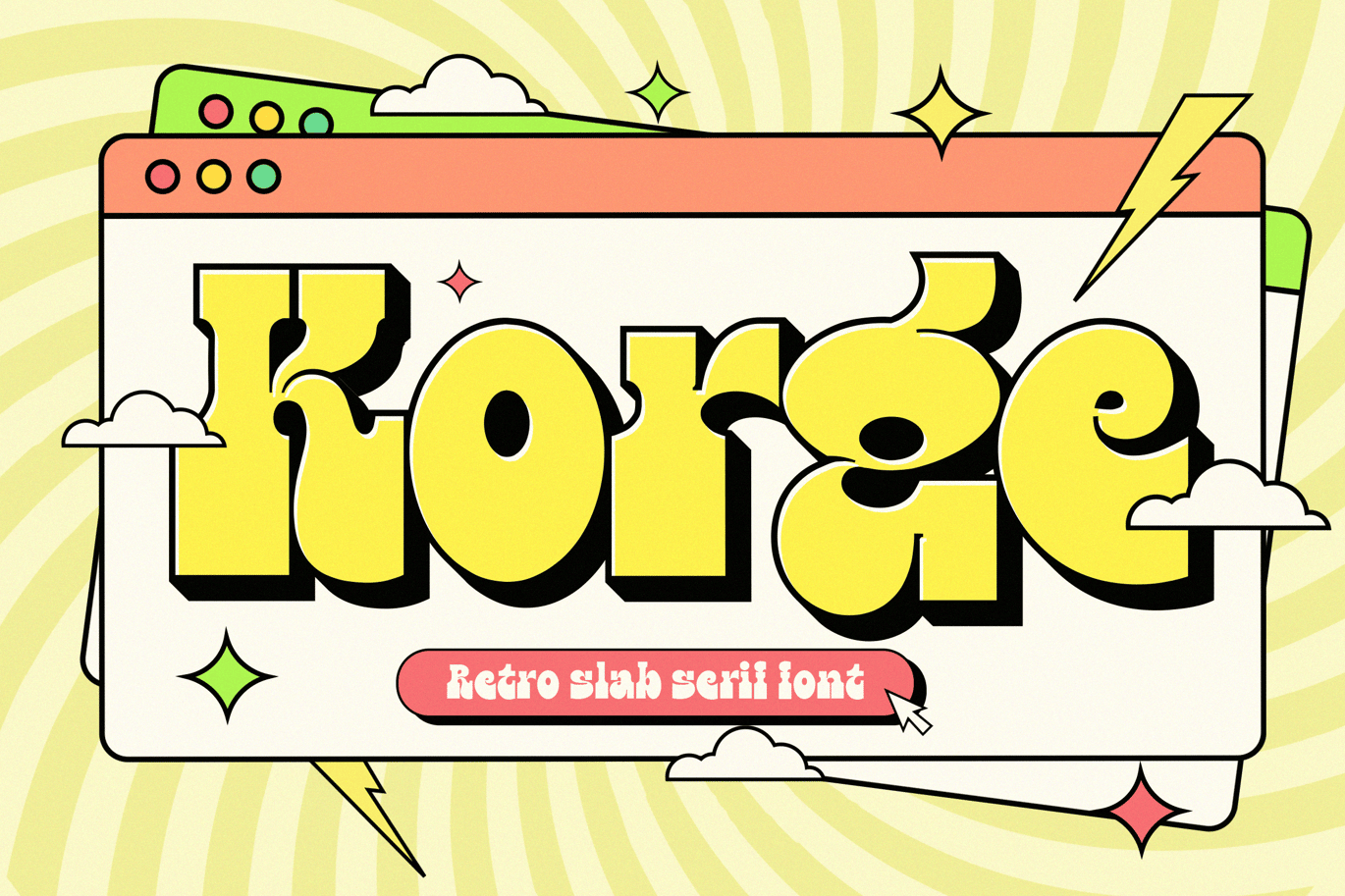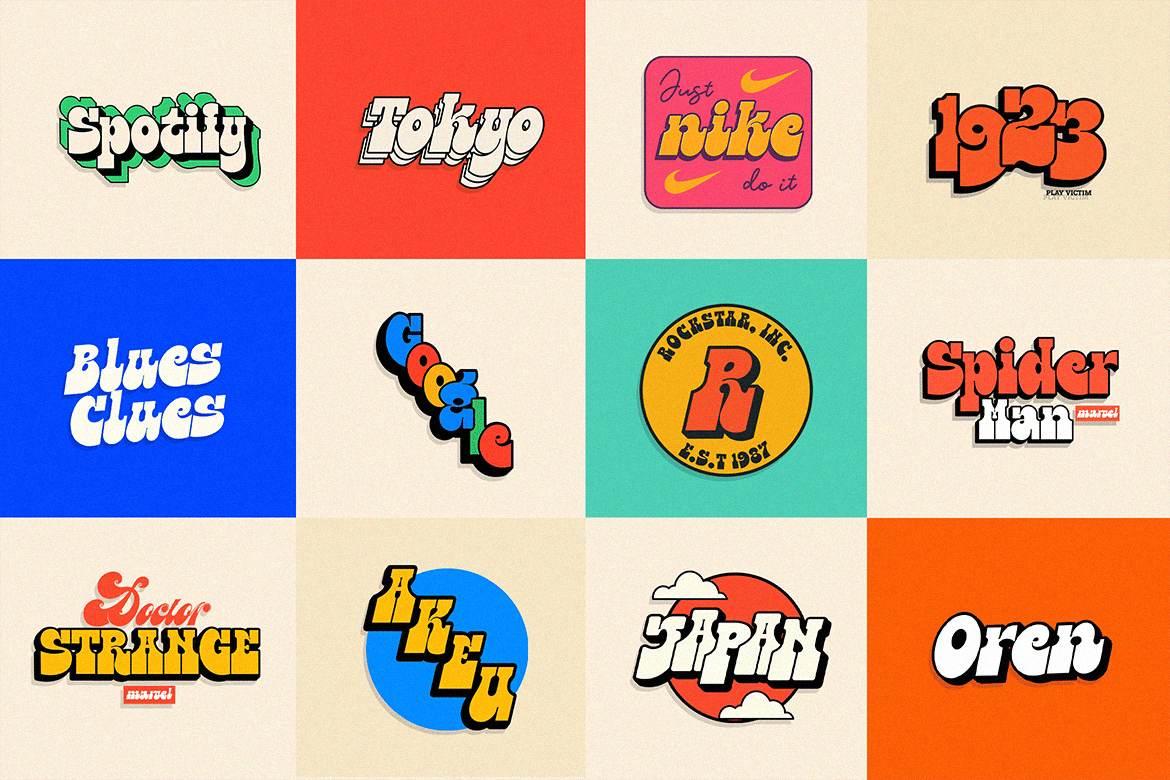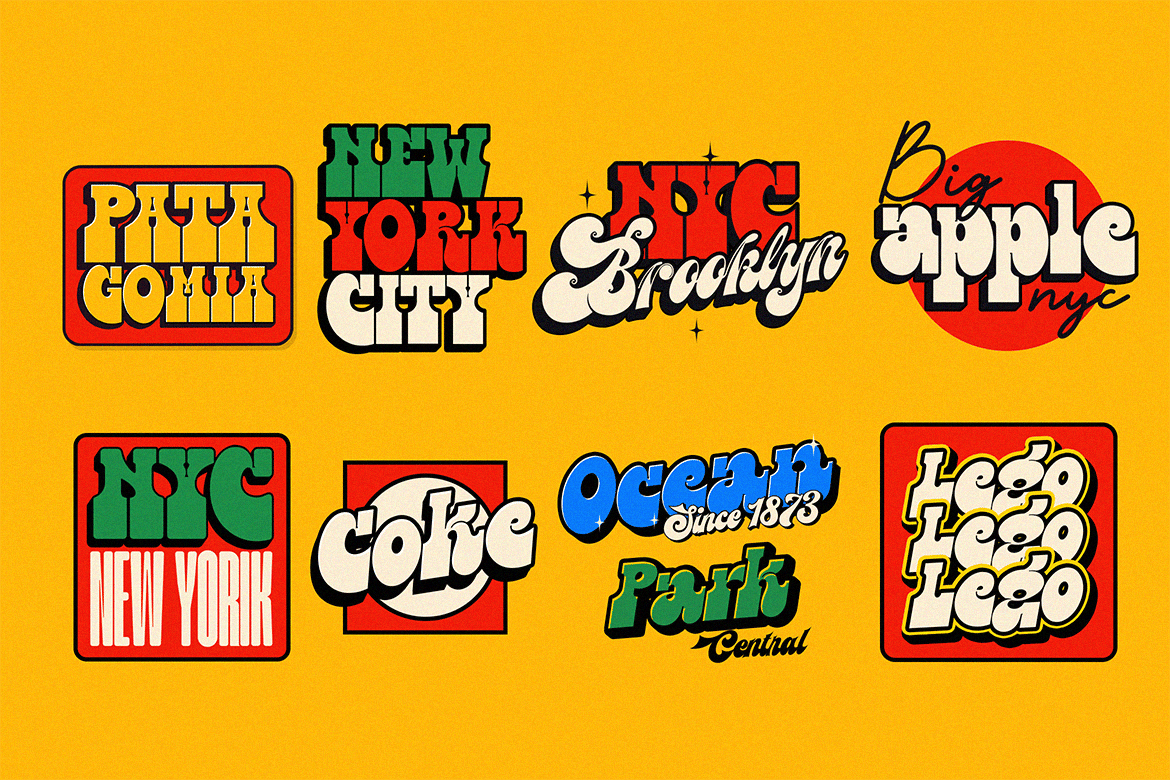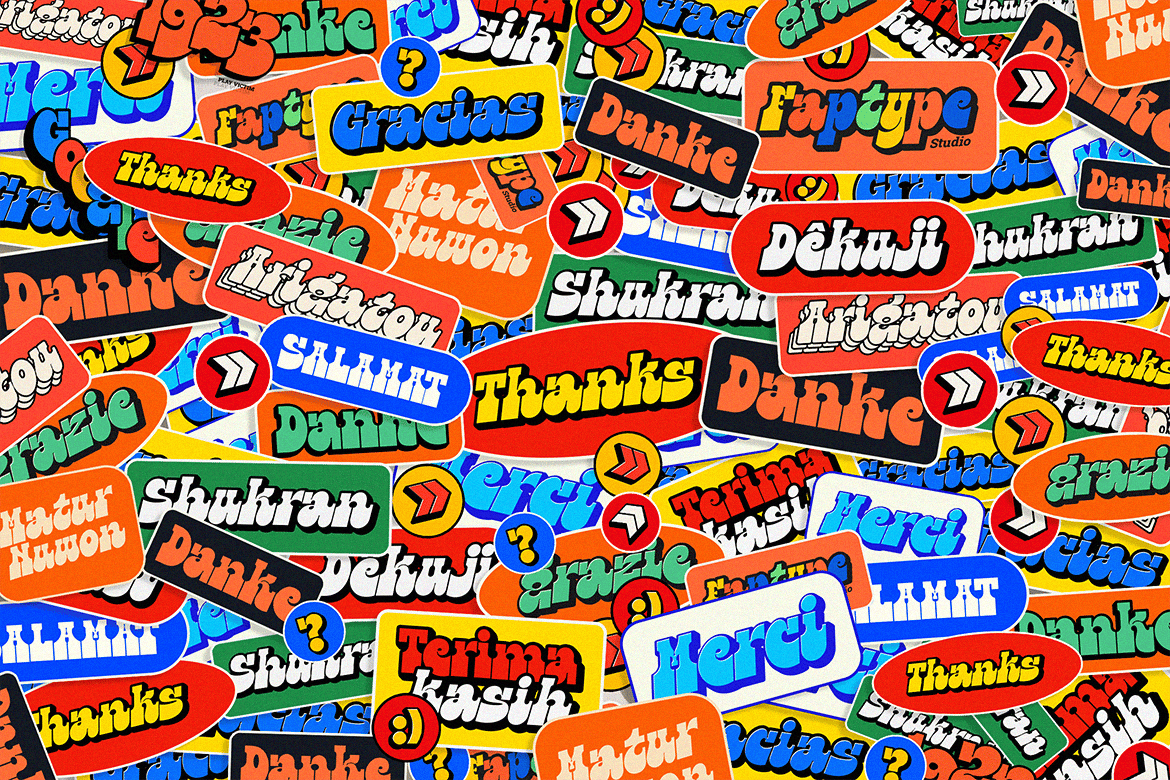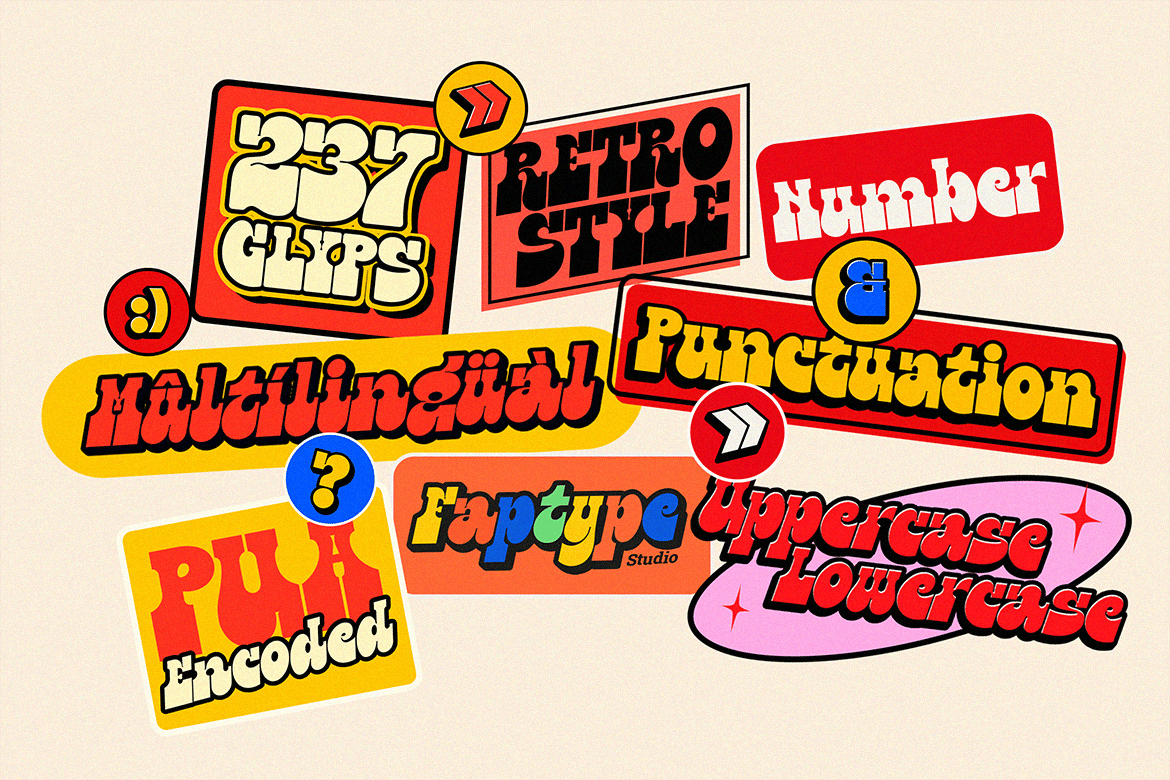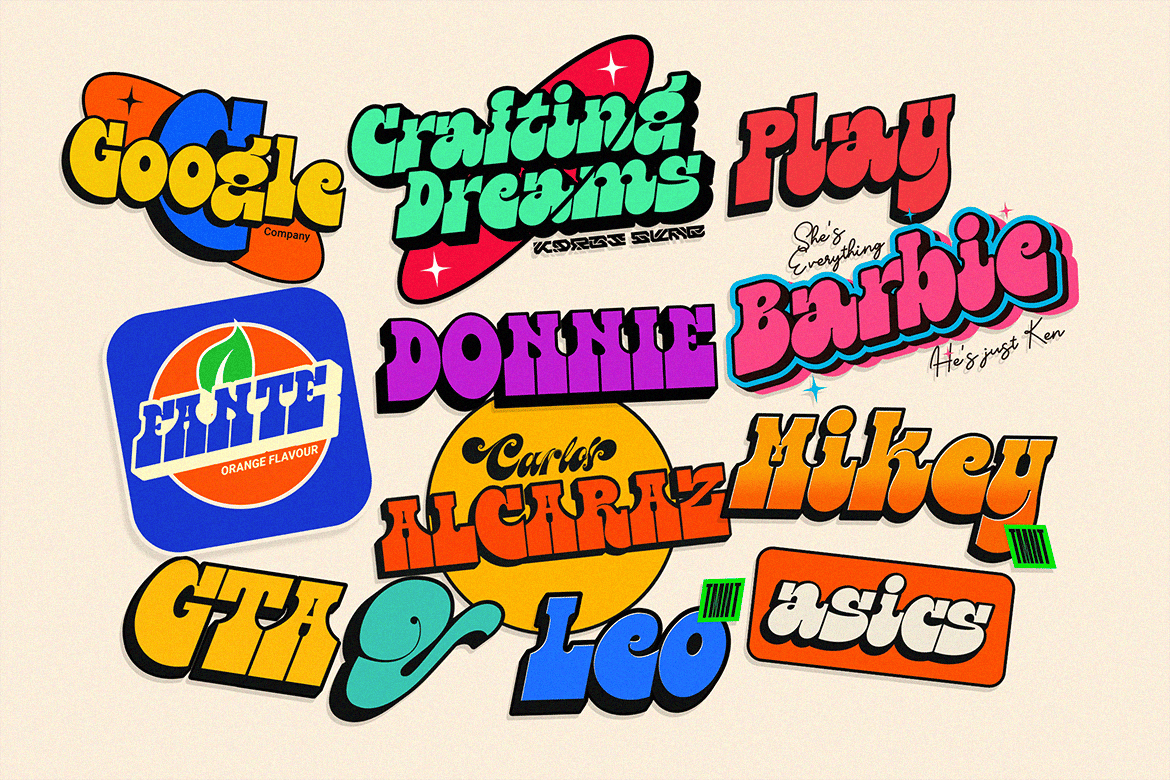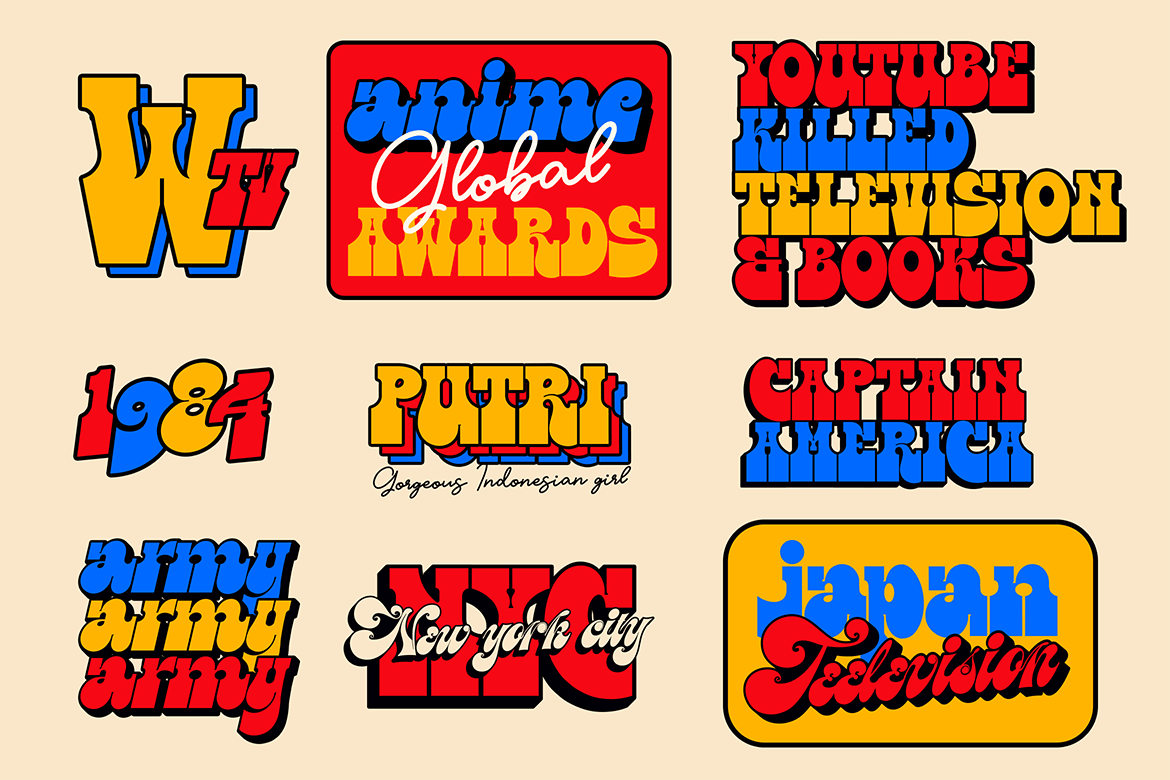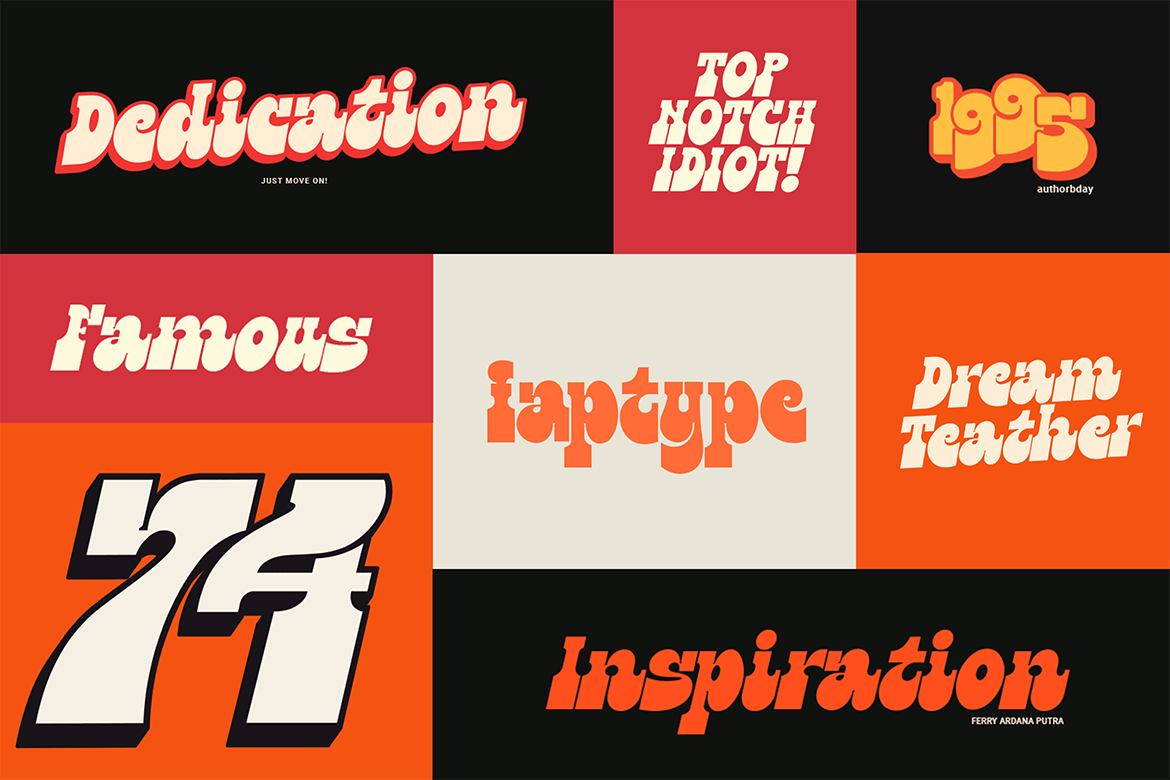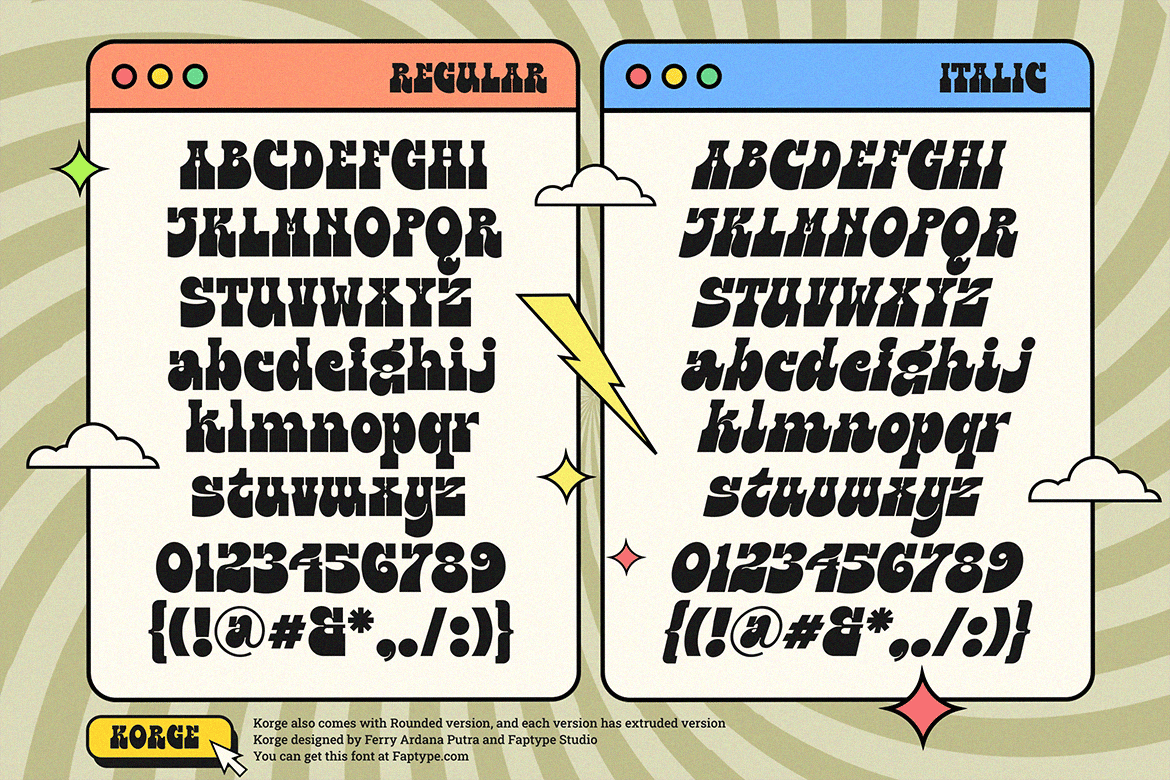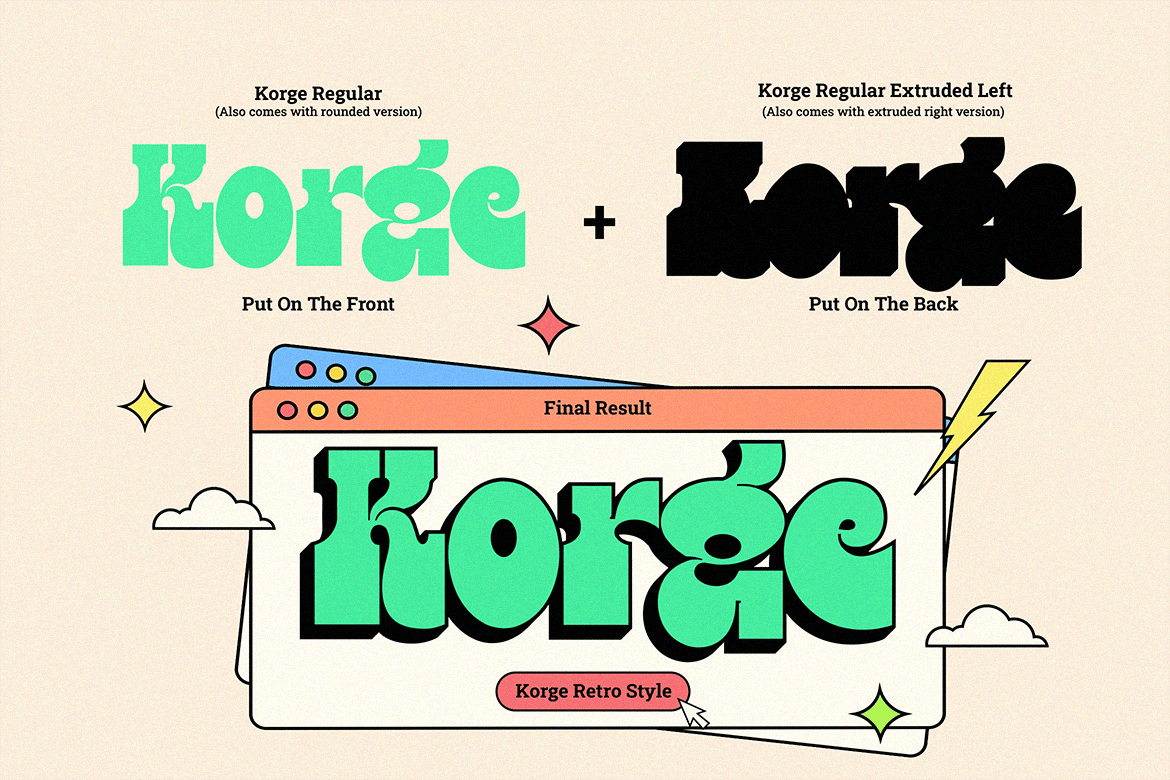
Korge | Bold Slab Serif Logo Font
Introducing “Korge”, a captivating and versatile retro bold slab serif font that seamlessly marries vintage aesthetics with modern functionality. With its bold design, serif form, and a trio of regular, rounded, and extruded versions, Korge offers a wealth of creative possibilities for your design ventures.
Korge is a font that transports your projects back to the golden eras of design. Its bold and distinct serifs evoke a sense of nostalgia, lending your creations a classic and enduring appeal.
Korge provides not one, but three distinct styles to choose from. The regular version exudes a commanding presence, while the rounded variant softens the edges for a more approachable feel. The extruded version adds depth and dimension, giving your text a 3D, eye-catching quality.
Korge is a font that speaks the language of design across borders. With its multi-language support and PUA encoding, it ensures your message resonates with audiences from diverse linguistic backgrounds.
From logo design to branding, packaging, posters, and beyond, Korge adapts seamlessly to a wide array of design projects. Its bold slab serifs demand attention, making sure your message is delivered with both authority and style.
Korge invites you to embark on a journey of creative exploration. Craft memorable headlines, iconic logos, or striking signage – this font is your canvas for pushing the boundaries of design.
With Korge, the possibilities are limitless. Its vintage-inspired bold slab serif design, multi-language support, and versatile styles make it the ideal choice for designers seeking to infuse their projects with timeless charm and contemporary appeal. Get ready to bring your visions to life with Korge, where classic meets cutting-edge.
Korge features:
- A full set of Uppercase & Lowercase letters
- Numbers and punctuation
- Multilingual language support
- OpenType Features
- +237 Total Glyphs
- Rounded Style + Regular Style
- Extruded Style